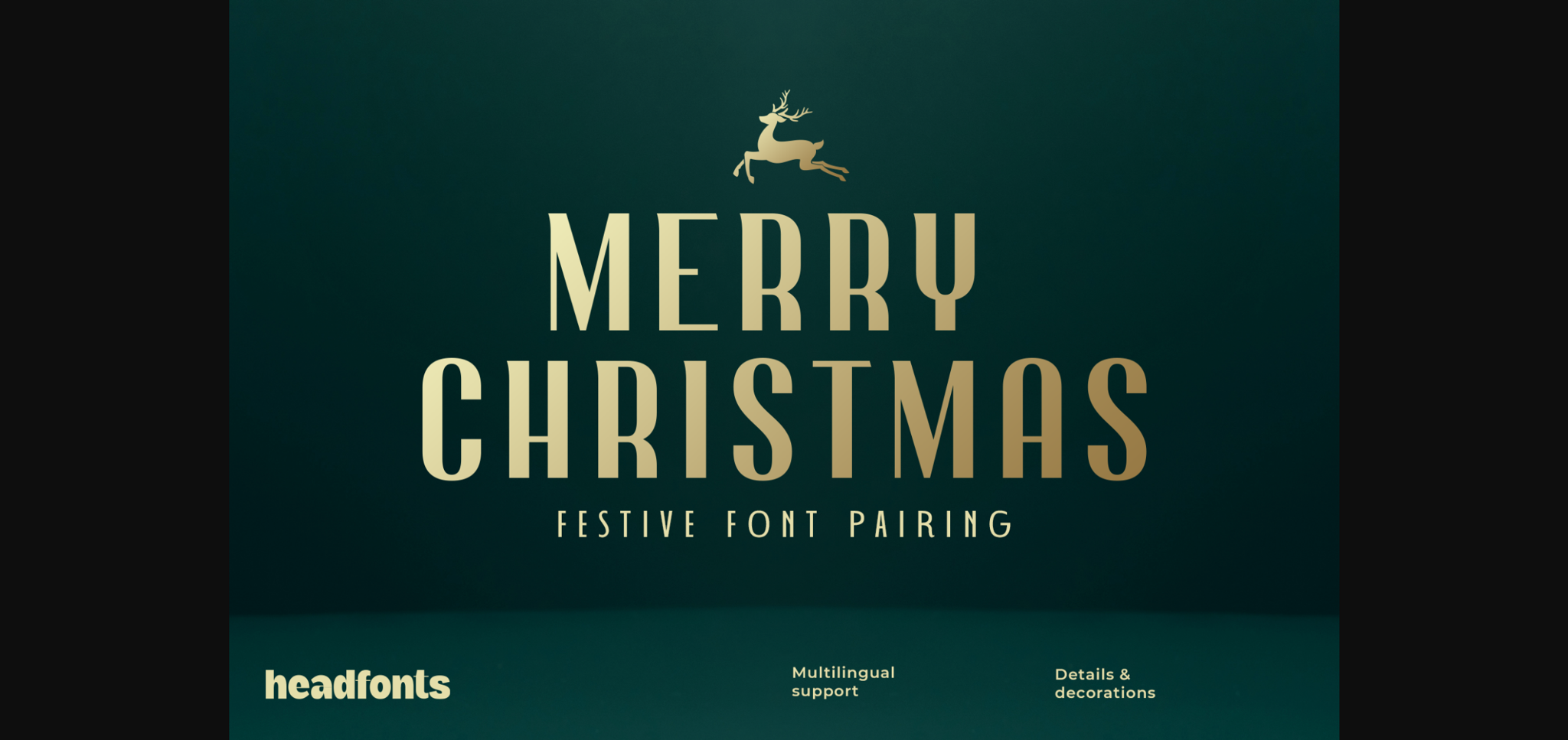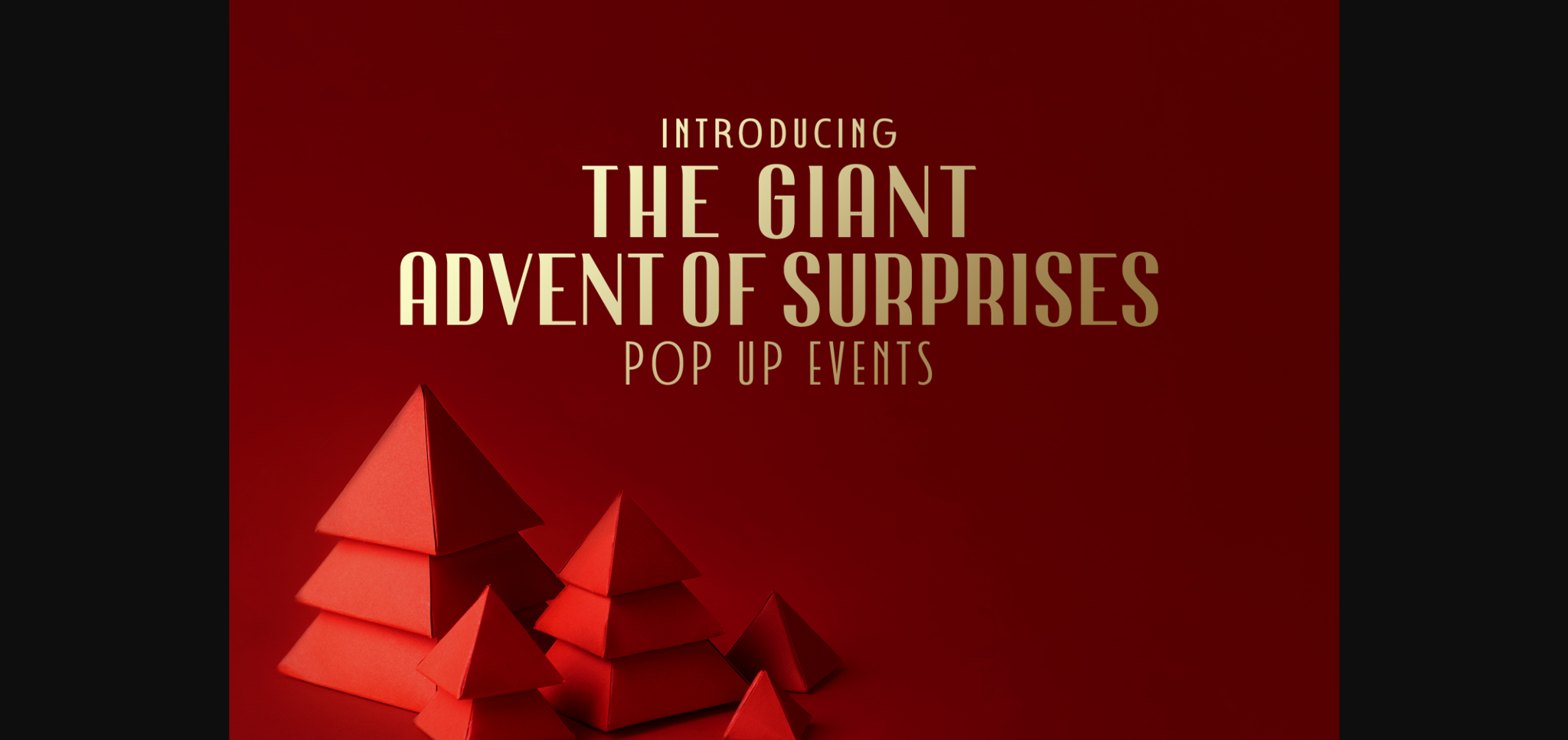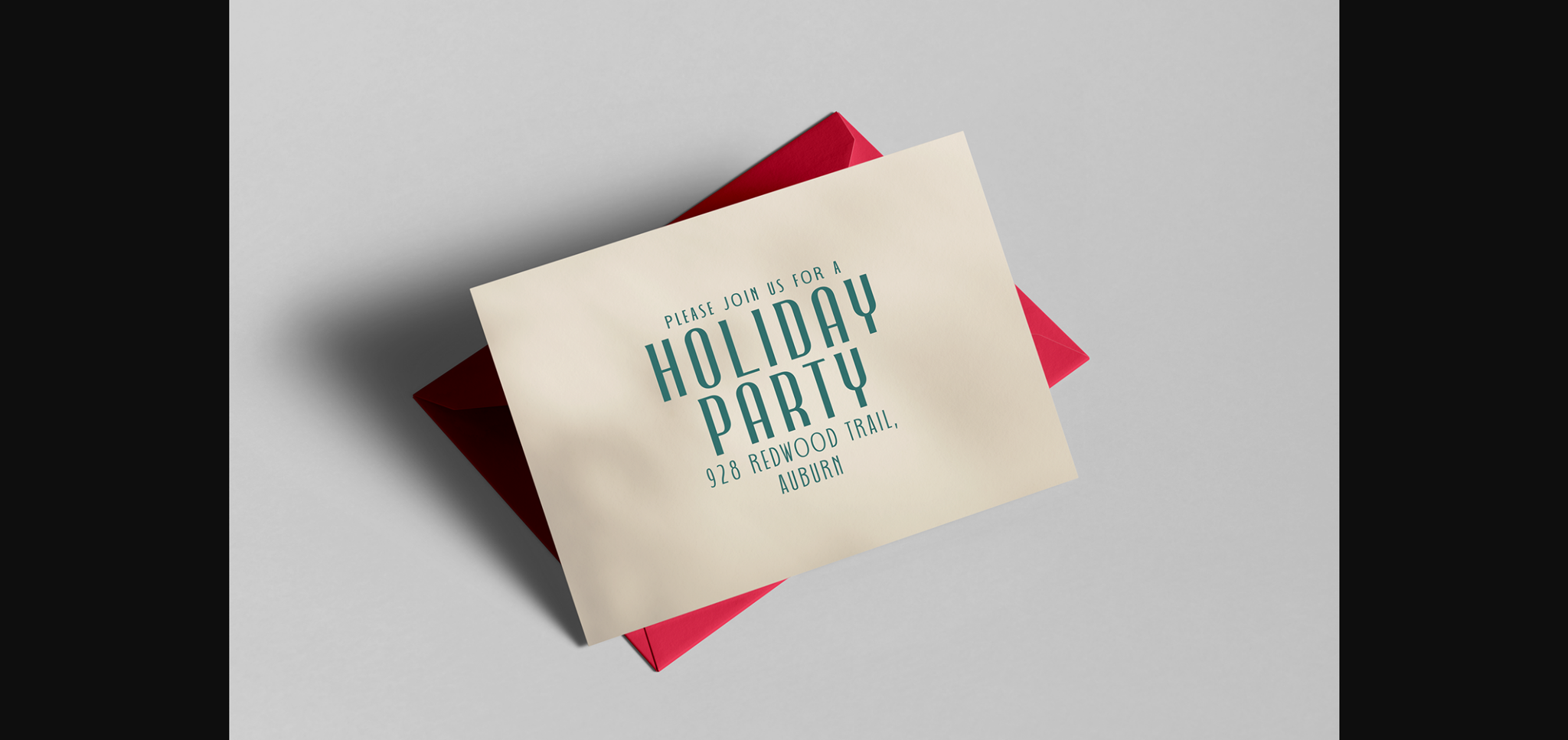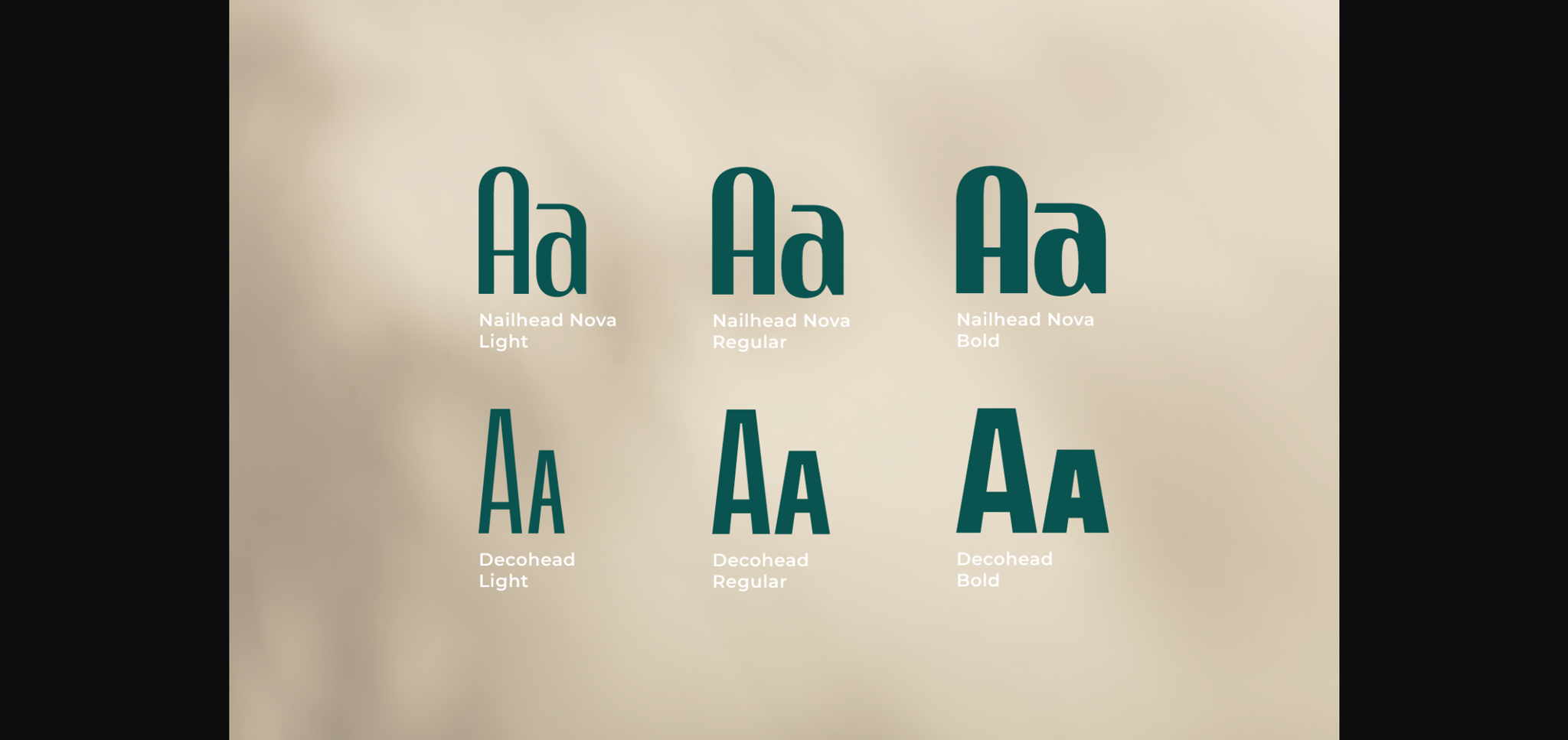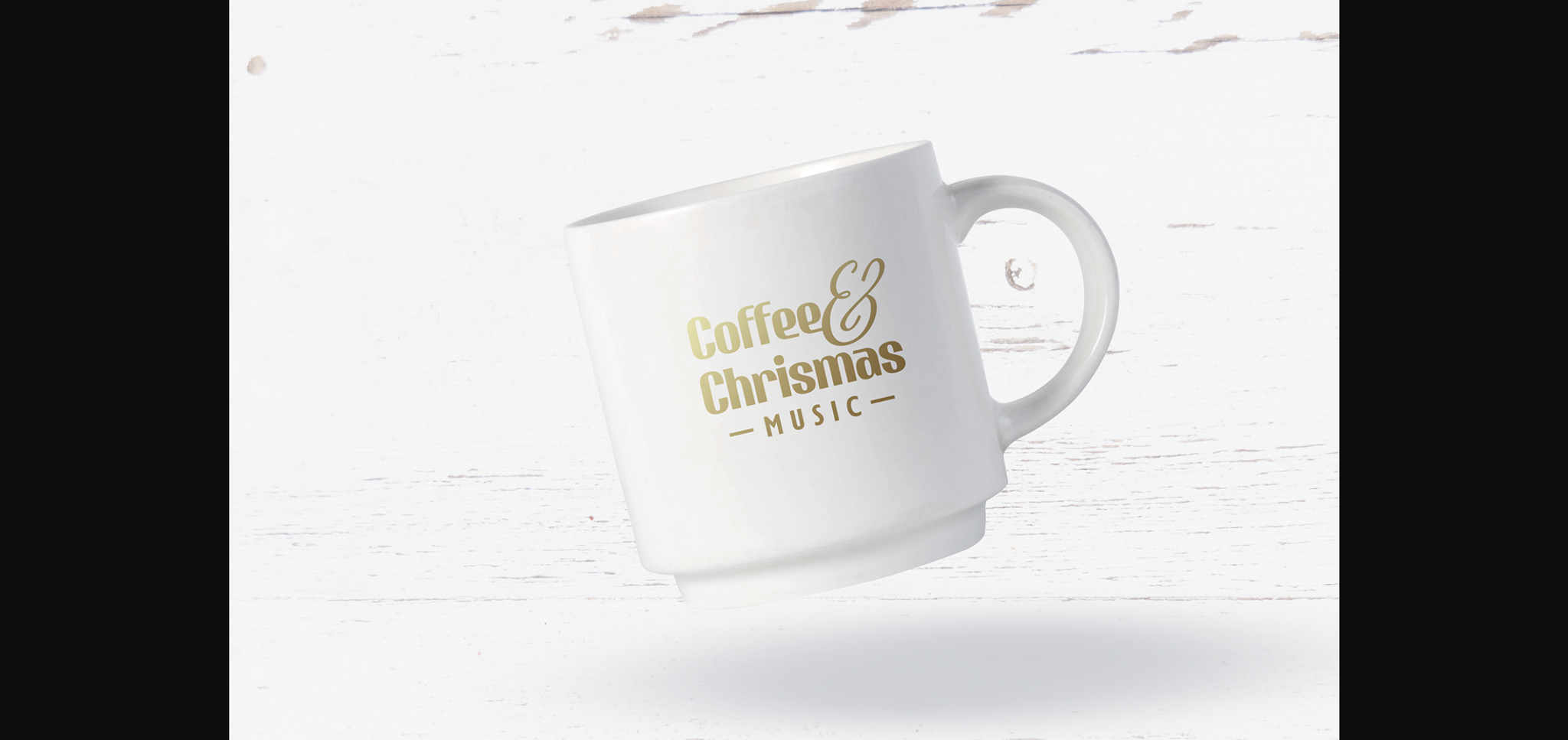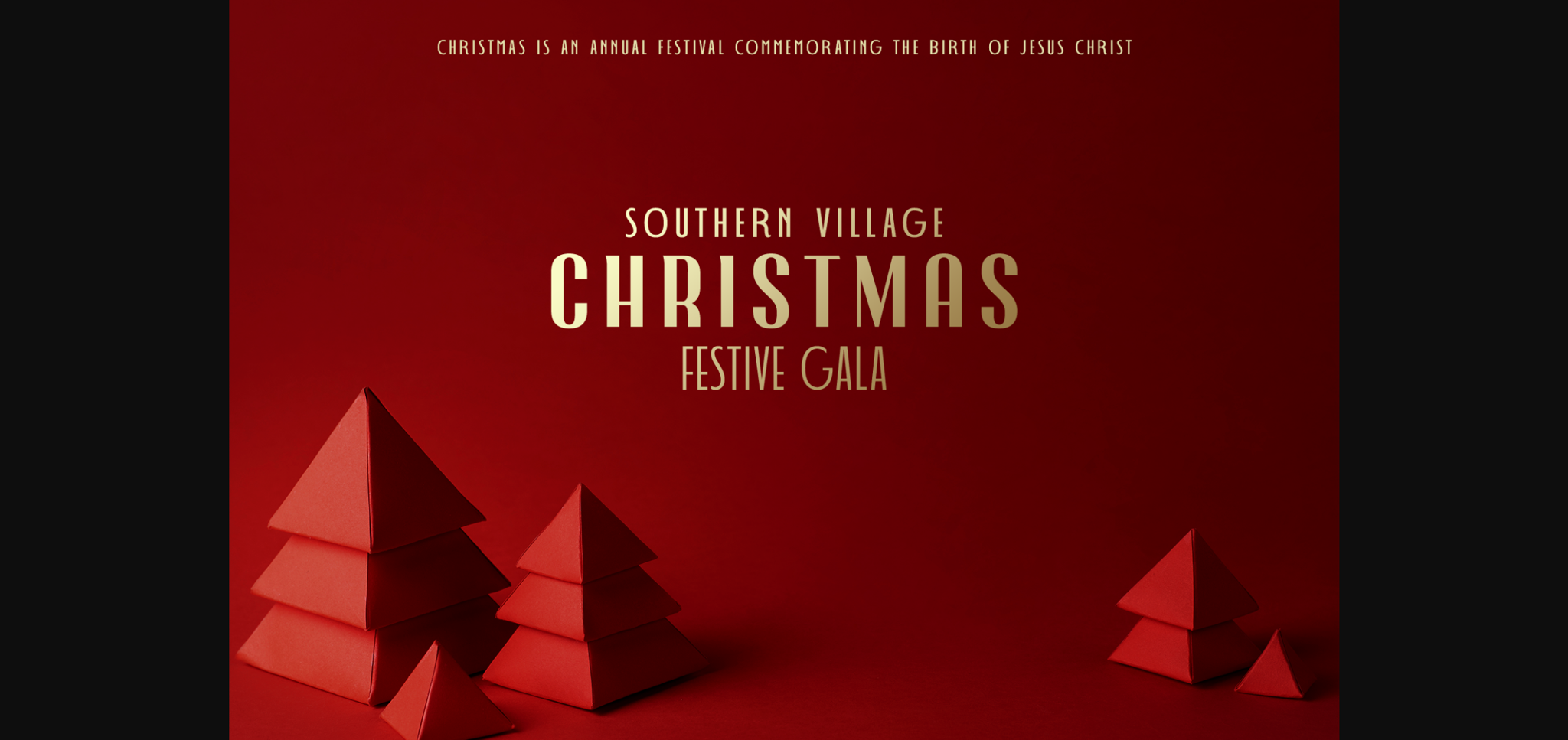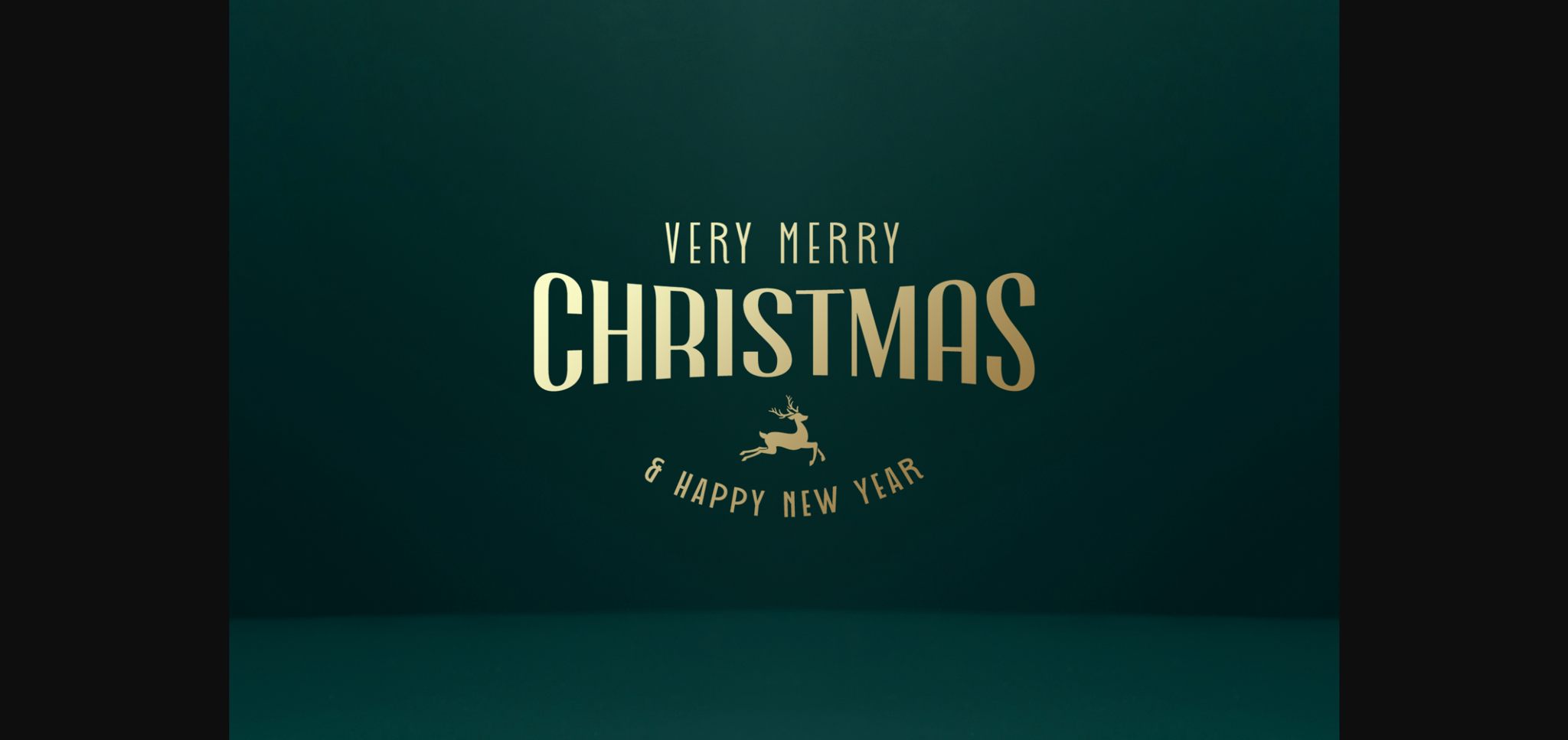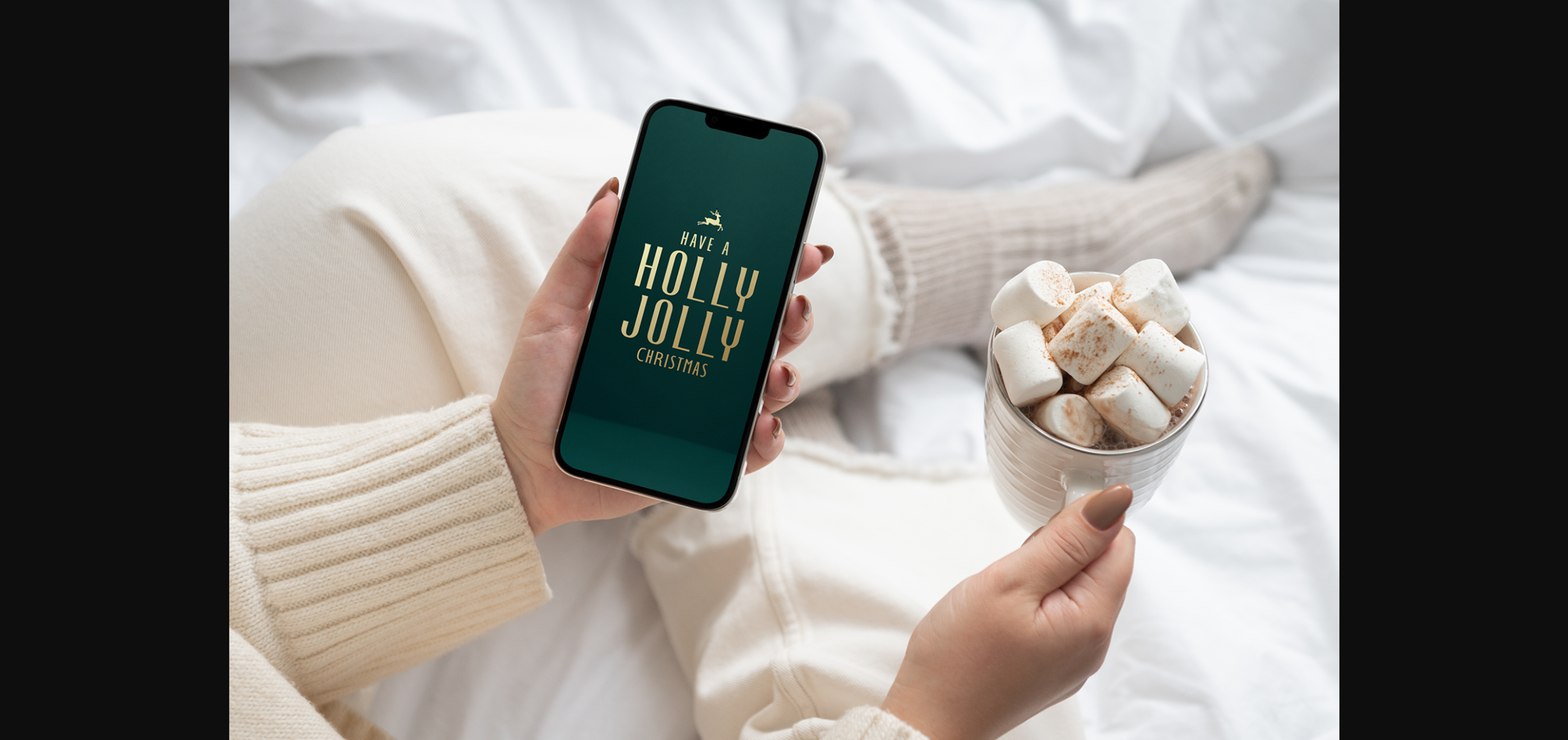
About Merry Christmas Font
Introducing Merry Christmas, a contrasting pair of festive fonts. One is elegant, while the other one is a simple and geometric sans serif, together making the best duo for your Christmas designs. This pairing is versatile, being a combination of an exquisite font like Nailhead Nova with Decohead, an art deco sans serif typeface.
You can use this merry and bright duo for almost any festive design project that requires a glamorous, decorative whisper. Merry Christmas to you all!